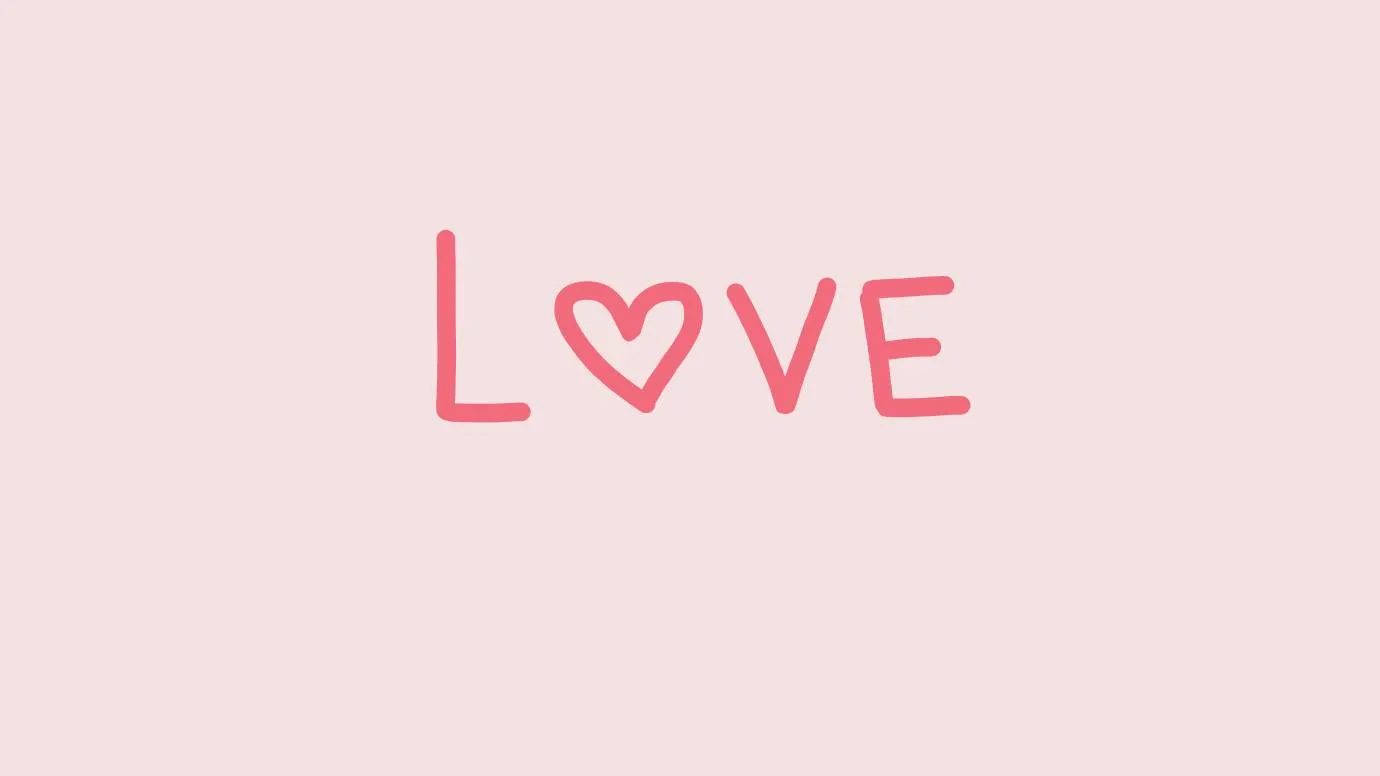
Love Font Family is a very lovely and attractive handwritten typeface. It was designed by Mahima Khullar. You can make all types of lovely and romantic projects by using this font.
All characters of this font have a very loveable look, especially the alphabet “O” which has a heart shape that makes this font more attractive and gives an eye-catching look to your projects.